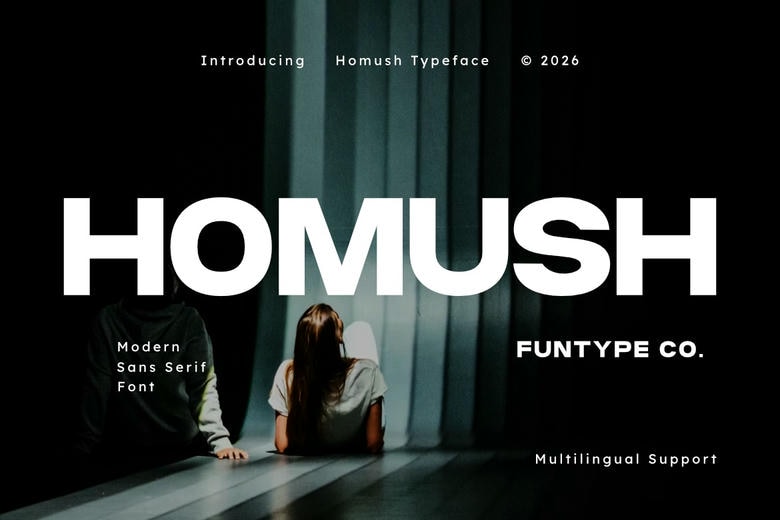
Homush Font
Homush is a modern sans serif font with a wide, sleek look that stands out in professional branding. Its bold lines and geometric shapes make it a great choice for headlines, streetwear labels, sports logos, tech packaging, and digital posters.
Homush’s strong, balanced design gives your visuals a bold and polished look, whether you use it for custom apparel or website headers.
Homush Sans Serif Font